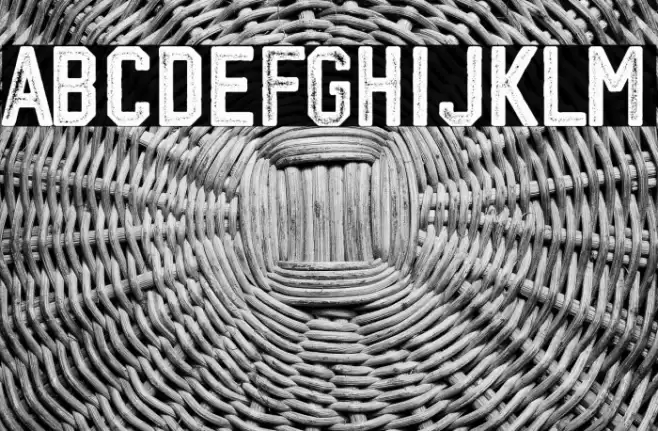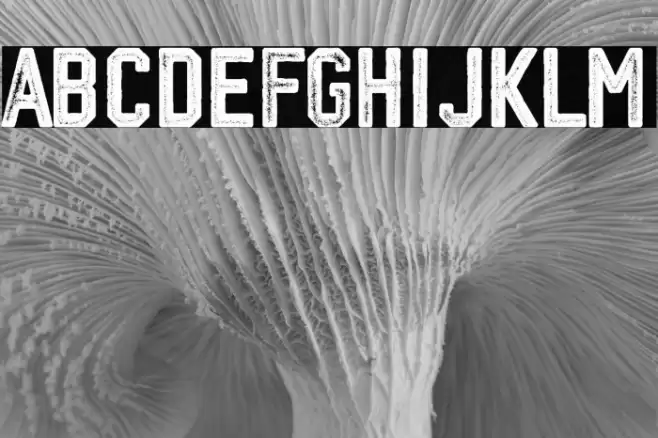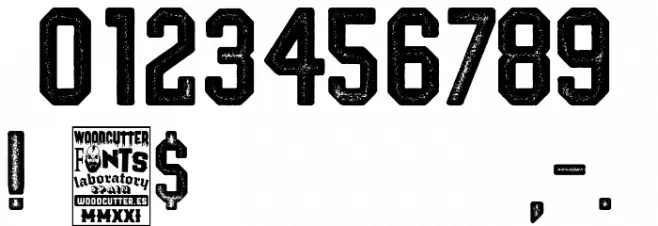
stone college 1936 Font
stone college 1936 Description
This font features a bold, distressed style with a vintage, collegiate feel. The characters are uppercase and numerals, with a textured appearance that mimics the look of worn stone or concrete. The edges are slightly rough, adding to the rustic and aged aesthetic. The font is highly legible, making it suitable for impactful headlines or titles. Its unique texture gives it a distinctive look that can add character to any design project.
A bold, distressed font with a vintage collegiate style and textured appearance from Uncategorized fonts.
- Proposed Projects: Ideal for vintage-themed posters, sports team branding, retro merchandise, and event flyers.
- Overall Style: Vintage